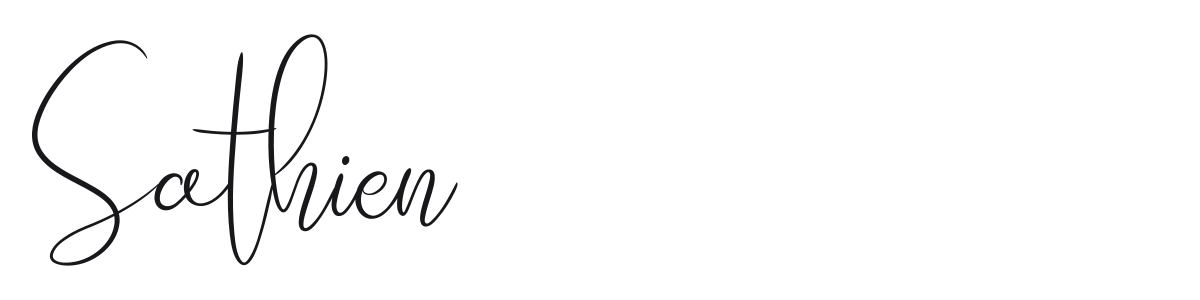
Sathien
Sathien is a flowing formal script rooted in copperplate calligraphy, with high stroke contrast and long sweeping strokes that link each letter into graceful word shapes. The generous ascenders and deep descenders give it an airy, romantic feel at headline sizes. It carries the handcrafted warmth of ink on paper without feeling overdone.